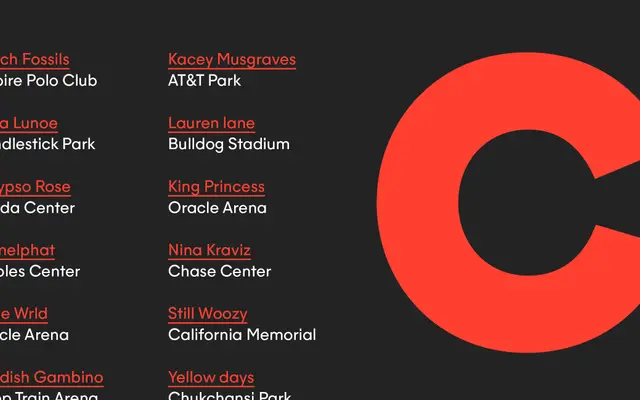
A geometric sans serif spanning eight weights from UltraThin to Black, with stylistic alternates that shift the family's tone from sharp and audacious to soft and classic.
Built on geometric principles, Majorant covers 18 styles including Roman and Italic Variable Fonts, making it usable across a wide range of applications. The extreme weights function as display cuts, with the UltraThin carrying a mathematical austerity and the Black an expressive weight. Stylistic alternates give designers meaningful control over the family's personality without switching typefaces.
Majorant is explicitly described as a geometric sans serif, with mathematical rigour informing its proportions and construction across its weight range.